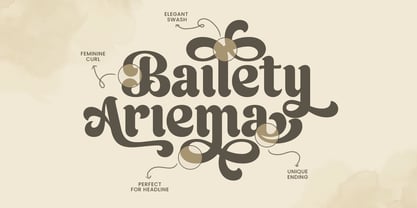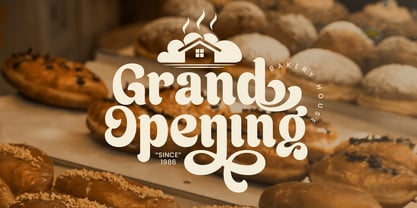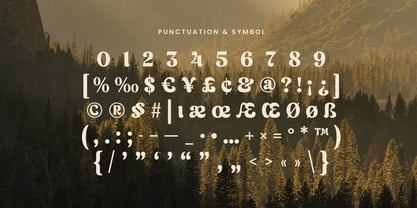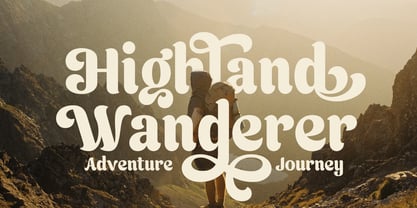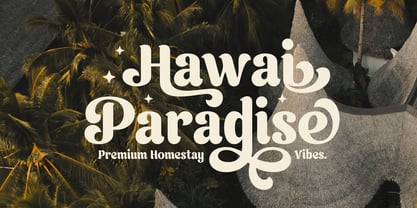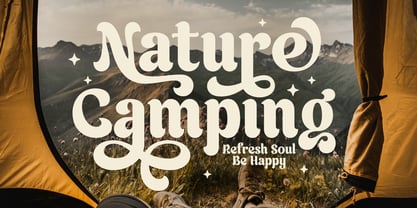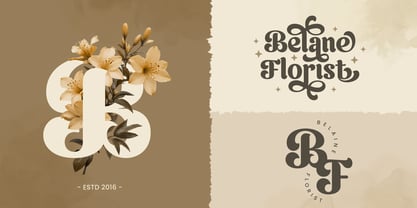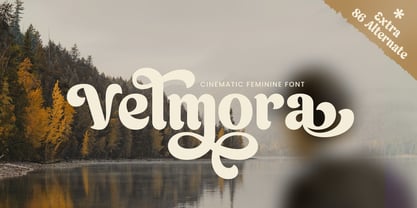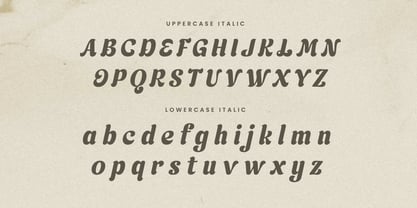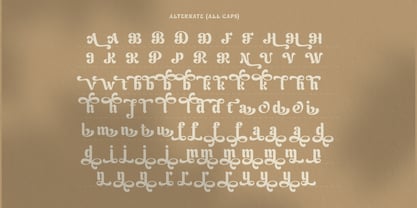
Velmora
La familia tipográfica Velmora fue diseñada por Zamroni Hamzah y publicada por Sensatype Studio. Velmora contiene 2 estilos y opciones de paquete familiar.
Velmora - Cinematic Feminine Font
Velmora is a beautifully crafted font that blends cinematic appeal with a touch of feminine elegance. Designed for those who seek sophistication, Velmora strikes the perfect balance between delicate curves and sharp edges. It draws inspiration from luxury brands and high-end fashion, creating a timeless look that speaks to modern tastes.
Velmora shines in branding projects, especially logos, business cards, and packaging, where a refined, stylish feel is essential. Its sleek lines and graceful details make it versatile across various industries, including beauty, fashion, and lifestyle. With strong ligature options and alternate characters, Velmora offers endless possibilities for customization. It’s designed for users who want to leave a lasting impression through striking visual identities, making it an ideal choice for sophisticated design needs.
Velmora Cinematic Feminine Font Features:
• Elegant Alternate Characters Ready
• Punctuation, Number, and Symbol
• Uppercase and Lowercase
• Opentype Features